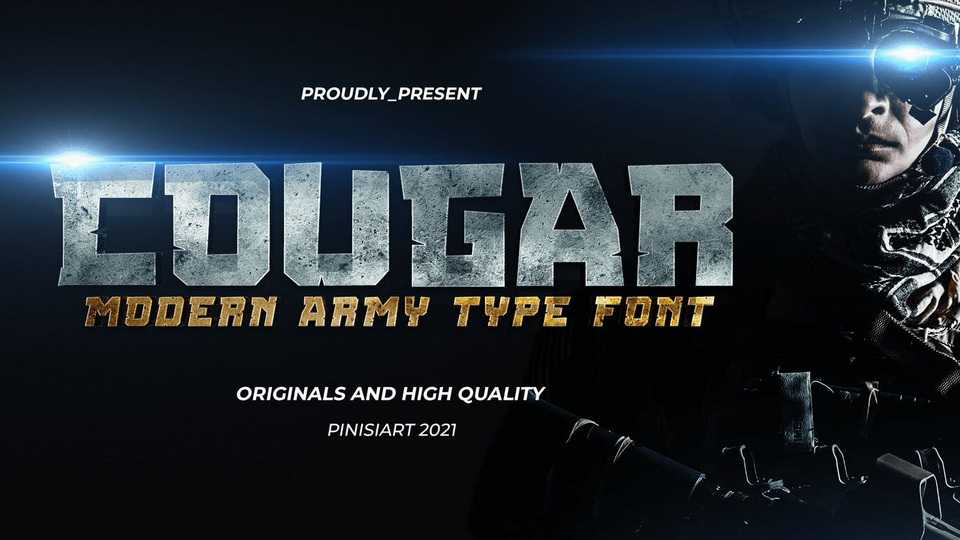
Download Cougar font, a modern military typeface. Suit perfectly for military themes books market, online games, stationary, school supplies font, poster, movie title, YouTube covers, YouTube thumbnails, social media page covers and so on…